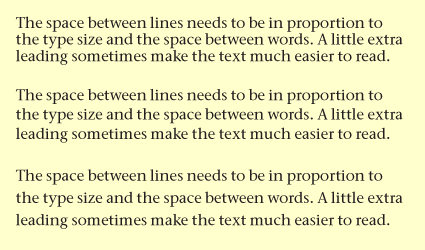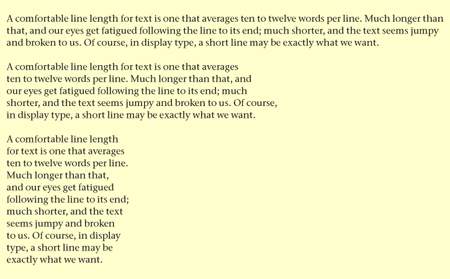
A ten-step training plan for font fitness
Type is one of the most powerful tools for communication that we have. Although most people don’t consciously notice type, they nonetheless respond to it; the way it’s used does make a difference. Typography, the art and craft of using type, is a large subject that concerns itself with small details. Think of this column as a sort of ten-step training plan for font fitness.
1. Start with a Good Font
Times Roman is the default in many programs, but it’s not the end-all and be-all. It’s got an awkward bold weight, and its italic is a little too decorative to be easy to read. Here are a few useful and fairly common workhorse typefaces:
Serif typefaces
- Minion
- Sabon
- Adobe Caslon
- Georgia
- Stone Serif
San serif typefaces
- Meta
- Frutiger
- Myriad
- Verdana
- Stone Sans
These are just a few good examples, not an exhaustive list. There are many more, from both large type manufacturers and one-person digital type foundries.
Whatever you use, make sure it’s a legitimate version, not a knock-off. This is not just to protect the type designer, but to protect yourself. A cheap knock-off can be defective: badly spaced, sloppily digitized, missing characters, not running properly with your other software. Free fonts are usually worth exactly what you paid for them.
A typeface that’s easy to read in text will usually work fine at larger sizes too, in large text or for display. The converse is not necessarily true; display faces almost always look cramped at small sizes and are difficult to read in a paragraph of text.
2. Use Real Italics
Make sure the font on your system includes an italic as well as a roman (or regular) version. Some typefaces, especially some sans serifs, use an oblique (a slanted version of the roman) rather than a true italic, but even in those faces, the oblique is a separately drawn and digitized type design. If you have only the roman and you apply an italic style to it, your software may simply take the upright roman and slant it. This looks very peculiar if the typeface is something like Times Roman or Minion or Meta that has a true, and very different, italic.
3. Use Typographer’s Quotes (And Apostrophes)
Quotation marks and apostrophes are not straight up-and-down lines; they have a direction, facing either right or left, and they’re designed specifically for each typeface. But computer keyboards evolved from typewriters, where the letters and punctuation marks got simplified; “typewriter quotes” have no sense of direction.
Since you’re not limited to a typewriter’s clumsy keys, always turn on “typographer’s quotes” or “smart quotes” in your software. That will take care of most of them, but there’s always the stray straight apostrophe that slips in, maybe imported from another file such as an e-mail message. So when everything else in your file is finished, do a quick search-and-replace for quotation marks (first double, then single); if you find any straight ones, replace them with the proper typographer’s quotes.
There’s one thing the program can’t do for you: It can’t tell an apostrophe from a single open-quote at the start of a word. That’s how you end up with a backwards apostrophe before an abbreviated year (‘98, ‘06), or with the two apostrophes in “rock ‘n’ roll” looking like mirror images of each other, instead of identical.
If you’re not sure where to find the typographer’s quotes on your keyboard, just select one somewhere else in your document that looks right, then copy it and paste it.
4. Use Real Small Caps, or None at All
If the typeface you’re using includes true small caps—alternate characters that are designed to work with the regular lowercase—then feel free to use them. They may be in a supplementary font (sometimes called an expert set), or, if you’re using an OpenType font with a large character set, they may be included within the same font. But if your typeface does not include small caps, then don’t try to fake them. The software may let you apply a “small caps” style to text, but that only shrinks the full-size caps by a predetermined percentage and sometimes widens the letters slightly. They look spindly and out of place; they don’t match the weight of the letters around them, and they probably look squashed together. Unless you’re working in an OpenType-savvy program such as InDesign and using an OpenType font with advanced typographic features, just forget that the “small caps” command even exists.
In some typefaces, you can make your own small caps manually by choosing a heavier weight and shrinking the point size. (The ITC Stone family was designed with just this in mind.) But not always; it doesn’t work in Times Roman, for instance, because the bold weight is actually a different design from the roman, and the thin strokes are still very thin.
5. Use Old-style Figures in Text